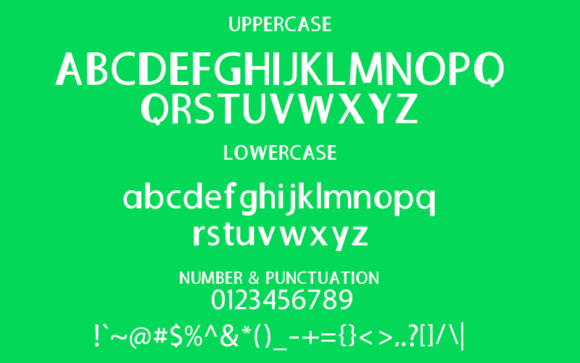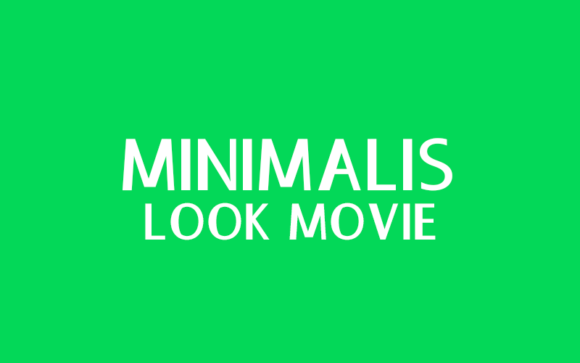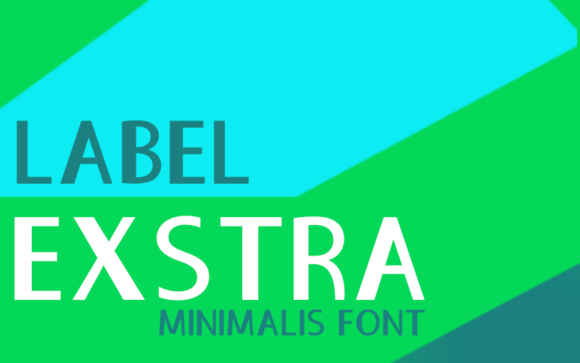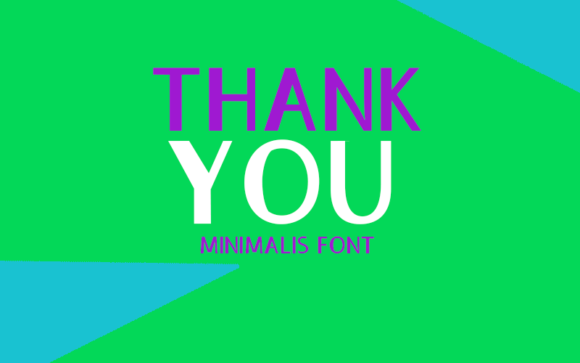
Discover the Beauty of Galileo Regular Font: A Minimalist Sans Serif Typeface
Are you a designer or crafter looking for a versatile and stylish font to elevate your projects? Look no further than the Galileo Regular Font, a stunning minimalist sans serif typeface that’s perfect for a wide range of designs. In this article, we’ll explore the features and benefits of Galileo Regular, and why it’s a must-have for any creative looking to add a touch of sophistication to their work.
What is Galileo Regular Font?
Galileo Regular is a beautifully crafted sans serif font that’s characterized by its clean lines, simple shapes, and minimalist aesthetic. This elegant font is designed to be highly legible and versatile, making it suitable for use in a variety of contexts, from digital designs to print materials.
Key Features of Galileo Regular Font
- Minimalist design: Galileo Regular boasts a sleek and modern design that’s free from unnecessary embellishments, making it perfect for designers who value simplicity and elegance.
- Sans serif: The font’s sans serif design ensures that it’s highly legible, even at small sizes, making it ideal for use in body text and captions.
- Versatile: Galileo Regular is a highly versatile font that can be used in a wide range of designs, from logos and branding to websites and print materials.
- Elegant: The font’s elegant design makes it perfect for use in high-end designs, such as luxury brands, fashion magazines, and upscale advertising campaigns.
Why Choose Galileo Regular Font?
So why should you choose Galileo Regular Font for your next design project? Here are just a few reasons:
- Unique and distinctive: Galileo Regular has a unique and distinctive look that will help your designs stand out from the crowd.
- Easy to read: The font’s clear and legible design ensures that your text is easy to read, even for readers with visual impairments.
- Scalable: Galileo Regular is designed to be scalable, making it perfect for use in a variety of contexts, from small captions to large headlines.
How to Use Galileo Regular Font in Your Designs
Galileo Regular Font is a versatile font that can be used in a wide range of designs, including:
- Logos and branding: Use Galileo Regular to create a unique and memorable logo that reflects your brand’s values and personality.
- Websites: The font’s clean and legible design makes it perfect for use in website designs, from headings and titles to body text and captions.
- Print materials: Galileo Regular is a great choice for print materials, such as brochures, flyers, and business cards.
- Social media graphics: Use the font to create eye-catching social media graphics that showcase your brand’s personality and style.